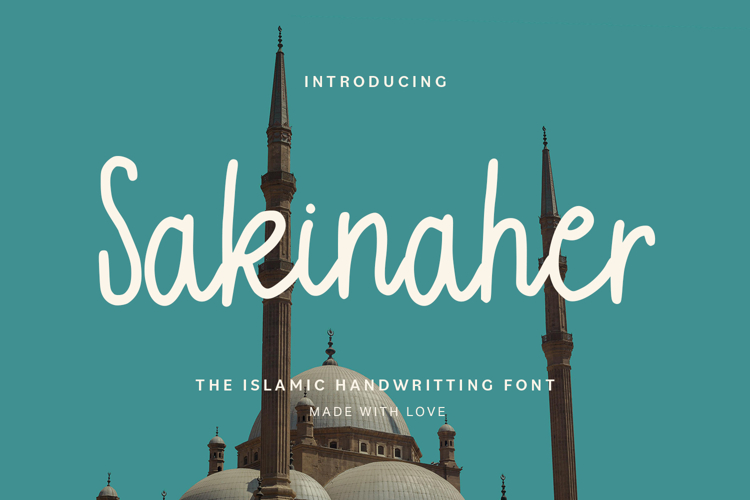
Sakinaher - Islamic Handwritten Font
Sakinaher is an Islamic handwritten font inspired by graceful pen strokes and spiritual elegance. Designed with a smooth and natural flow, this font reflects warmth, modesty, and refined character. Its handwritten style creates a respectful tone, making it ideal for Islamic branding, religious quotes, invitations, social media graphics, Ramadan designs, and meaningful visual projects. Sakinaher blends simplicity and beauty to deliver a calm, authentic handwritten presence.